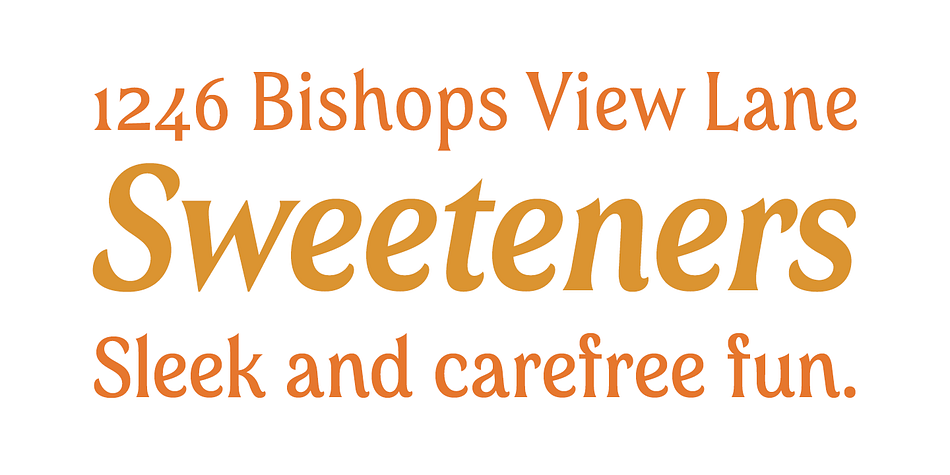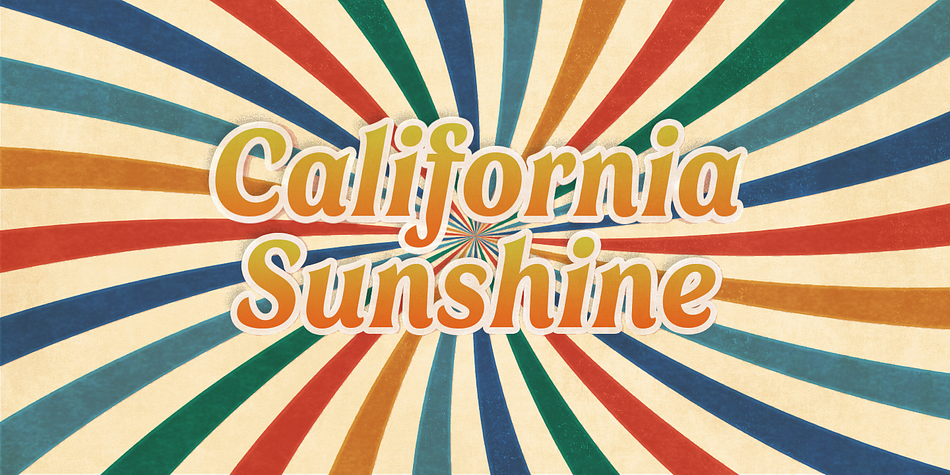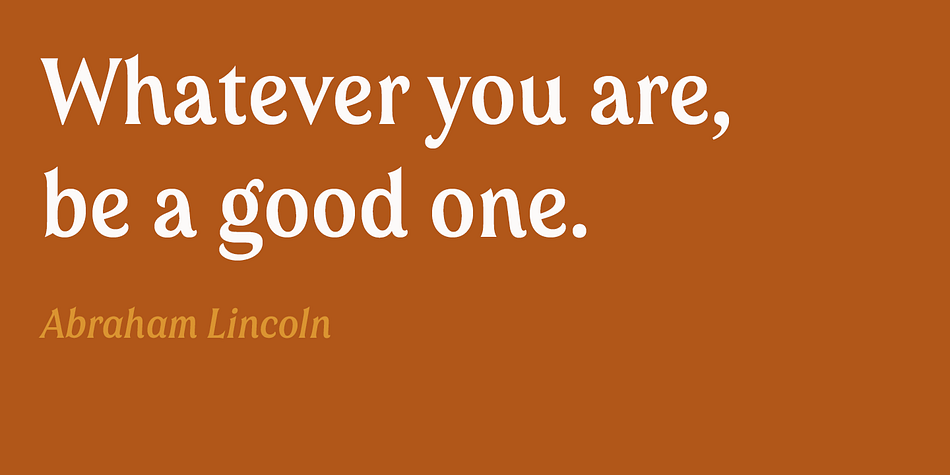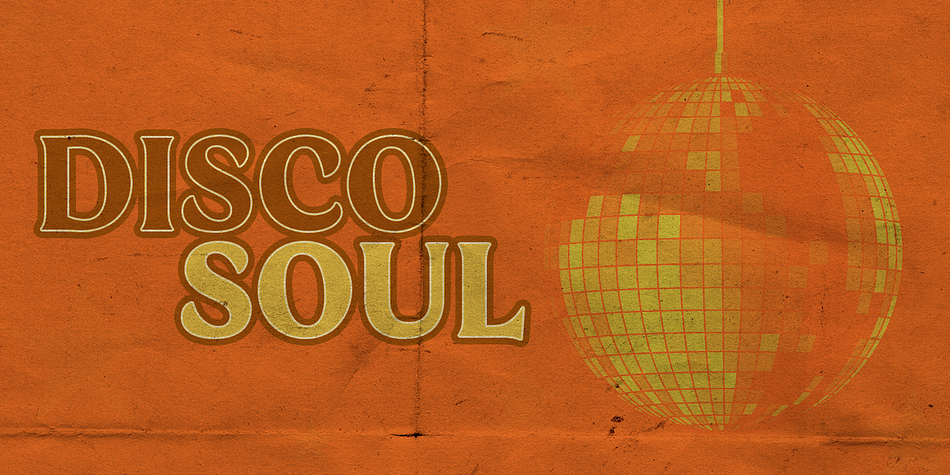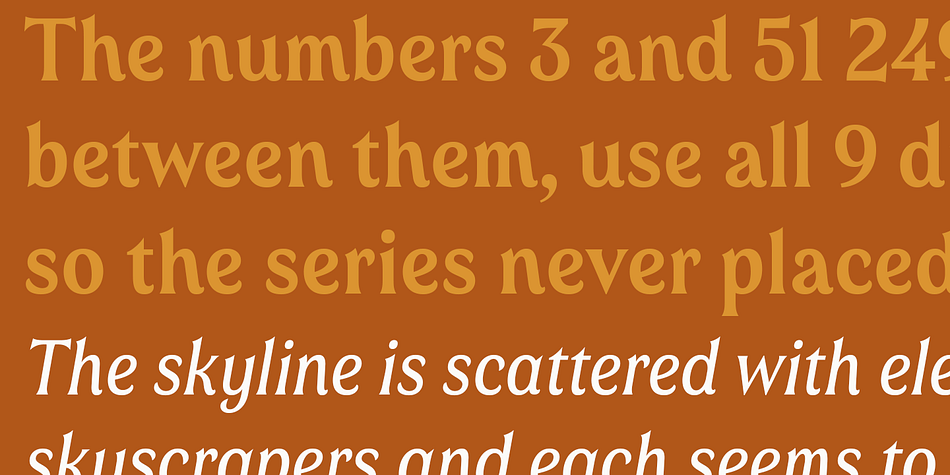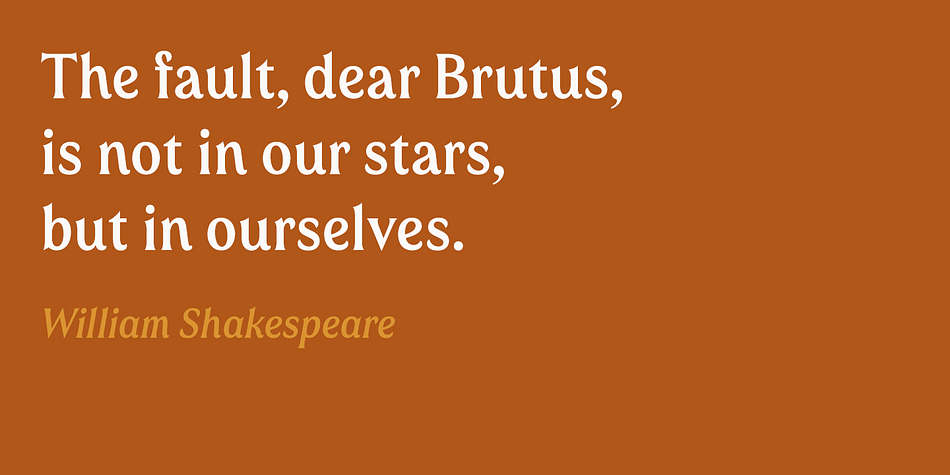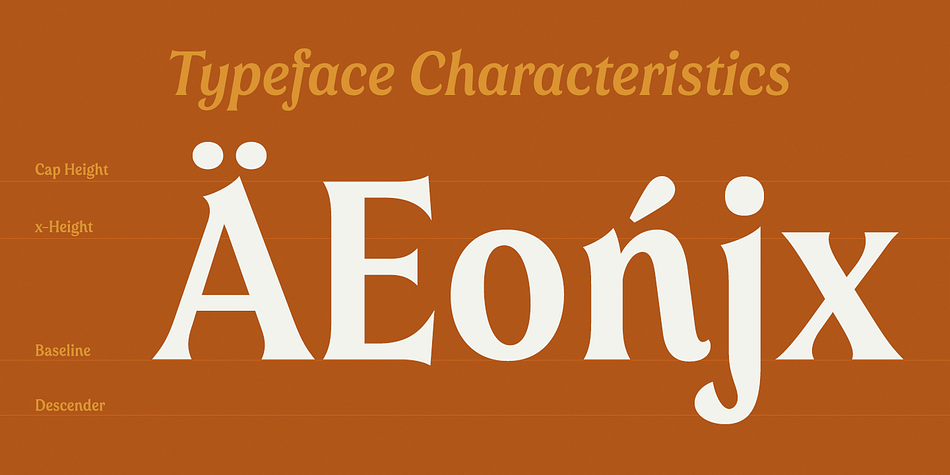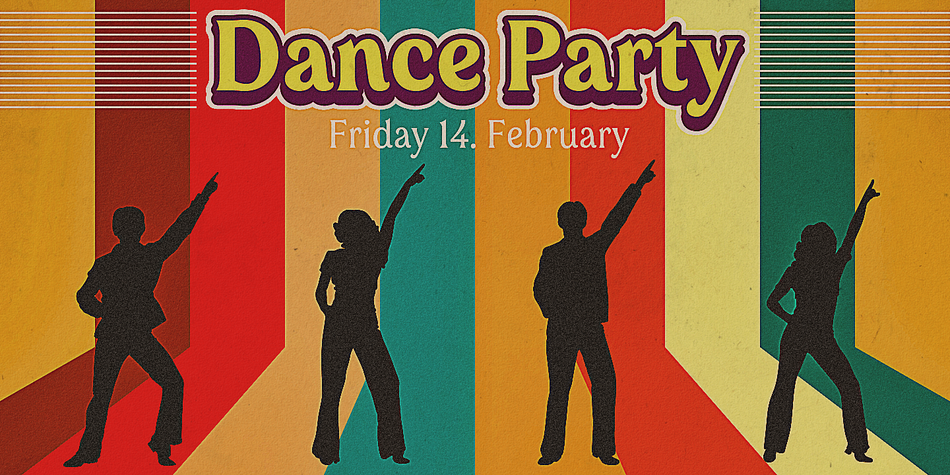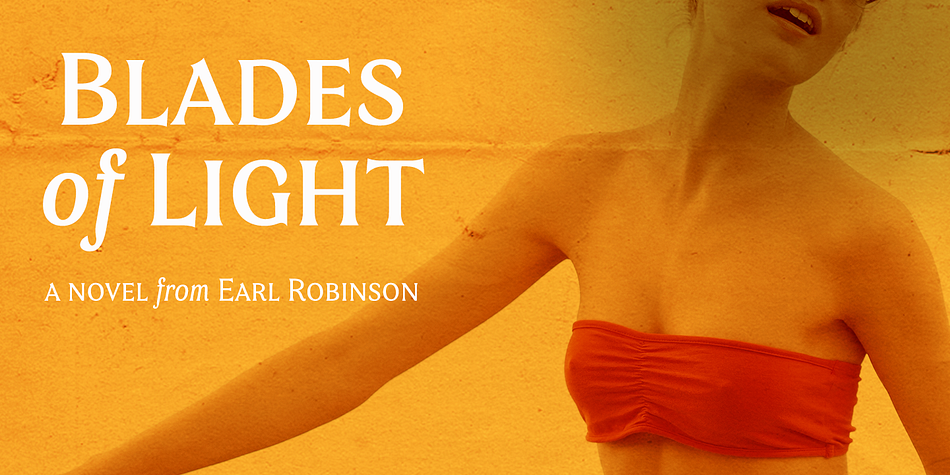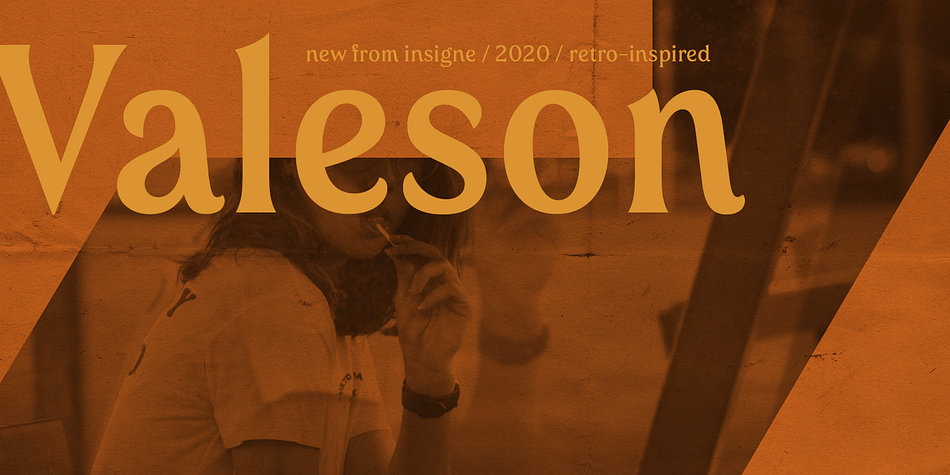
Designed by Jeremy Dooley, Valeson is a serif font family. This typeface has fifty-four styles and was published by Insigne Design.
Feel the funk with the retro-inspired Valeson. This groovy mix of the ‘70s and ‘80s has an upbeat rhythm of its own that will make your project boogie. It’s loads of fun with its swashy, calligraphic twist.
Push it to the max with plenty of weights. Denser weights are brawny and robust, fantastic for headlines, while medium weights are swell for short bits of text. With all its options, this fun, throwback personality is still streamlined and plenty useful for today’s jobs.
It’s loads of fun with its swashy, calligraphic twist.